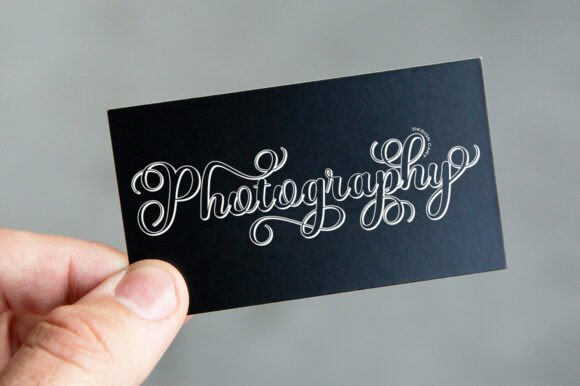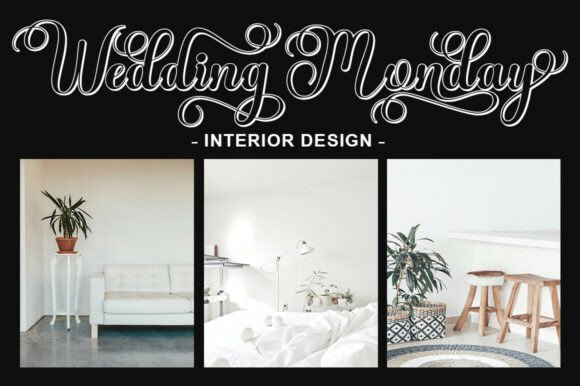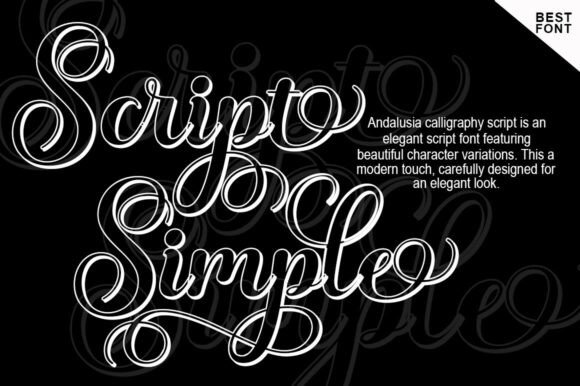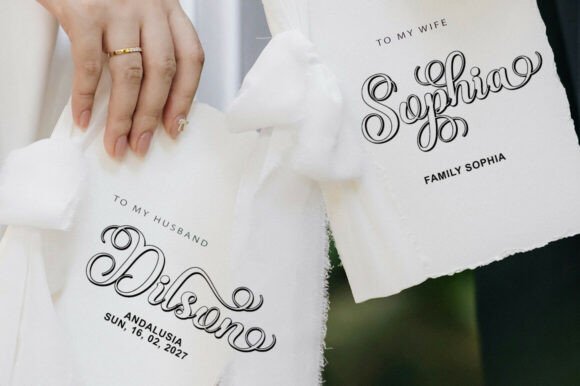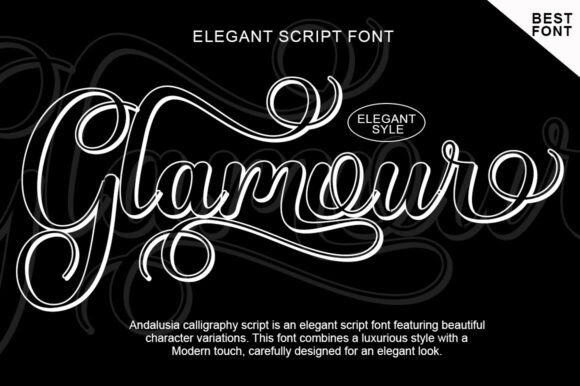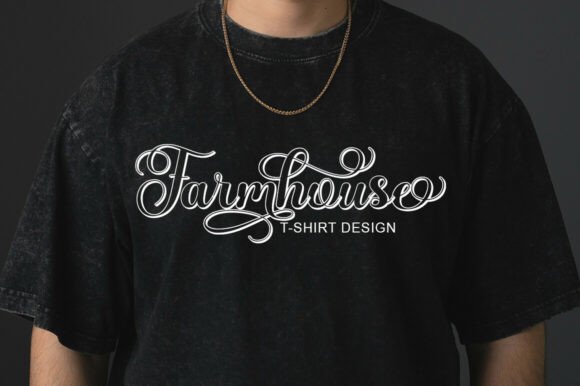
The Art of Elegant Typography: Introducing Andalusia Calligraphy Font
As I sat at my desk, staring at a blank sheet of paper, I couldn’t help but feel a spark of creativity ignite within me. I was tasked with designing a wedding invitation, and I wanted to make it truly special. I began to brainstorm, thinking about the perfect font to capture the essence of the occasion. That’s when I stumbled upon the Andalusia Calligraphy Font – a delicate, handwritten font that seemed to whisper elegance and sophistication.
Designed for those who crave unique and cool designs, the Andalusia Calligraphy Font is a valuable asset for any designer looking to add a touch of whimsy to their projects. Whether you’re working on a letter, invitation, food product, or title, this font is sure to make your design stand out. Its versatility and beauty make it an essential tool in any designer’s toolkit.
Andalusia Calligraphy Font Key Features
- Font Family: Andalusia Calligraphy
- Font Style: Script
- Font Weight: Regular
- Unique Characteristics: Elegant, cursive script with intricate details and flourishes; ideal for invitations, wedding cards, and other calligraphic designs.
- Language Support: Multilingual support for Latin-based languages, including English, Spanish, French, German, Italian, and many more.
Andalusia Calligraphy Font Review
As a designer, I’ve had the pleasure of working with a variety of fonts, and Andalusia Calligraphy is definitely one of the more interesting ones. ✨ The elegant, cursive script is reminiscent of traditional Islamic calligraphy, and it’s perfect for adding a touch of sophistication to any project.
Here are some of the things that work well with Andalusia Calligraphy:
- ✨ Beautiful, intricate details: The font features a range of beautiful flourishes and decorations that add depth and visual interest to any text.
- ✨ Versatile: Whether you’re using it for headings, body text, or even logos, Andalusia Calligraphy is a versatile font that can be used in a variety of contexts.
- ✨ High-quality rendering: The font renders well in a range of sizes and resolutions, making it perfect for both print and digital projects.
- ⚠️ Limited character set: While Andalusia Calligraphy has a wide range of glyphs, it’s not a full Unicode font, which can be a limitation for certain projects.
- ⚠️ Not suitable for small text: Due to its intricate details, Andalusia Calligraphy is best used for larger text sizes, as small text can become difficult to read.
Overall, I think Andalusia Calligraphy is a beautiful font that can add a touch of elegance to any project. While it may have some limitations, it’s definitely worth considering for your next design project.
Use the Andalusia Calligraphy Font for:
- Event branding and signage.
- Custom quotes and wall art.
- Adding a touch of elegance to your digital content.
Remember to adjust the font size and color to ensure the text is legible and visually appealing.
The Andalusia Calligraphy Font is a beautiful and elegant font, but sometimes designers may want to explore other options. Here are a few alternatives:
1. Lobster
Lobster is a cursive script font that is similar to Andalusia Calligraphy Font in terms of its elegant and flowing feel. It is ideal for use in titles, headings, and other text where a touch of sophistication is desired. While Lobster is not as ornate as Andalusia, it has a more modern and playful feel that makes it suitable for a wider range of designs.
Carolyna Pro is a luxurious and elegant font that is perfect for high-end designs. It has a more refined and sophisticated feel than Andalusia Calligraphy Font, making it ideal for use in luxury branding, invitations, and other high-end materials. While Carolyna Pro is more formal than Andalusia, it shares a similar level of elegance and sophistication.
Great Vibes is a modern and elegant script font that is similar to Andalusia Calligraphy Font in terms of its flowing and connected feel. It is ideal for use in titles, headings, and other text where a touch of elegance and sophistication is desired. While Great Vibes is more modern and minimalist than Andalusia, it has a similar level of elegance and sophistication.